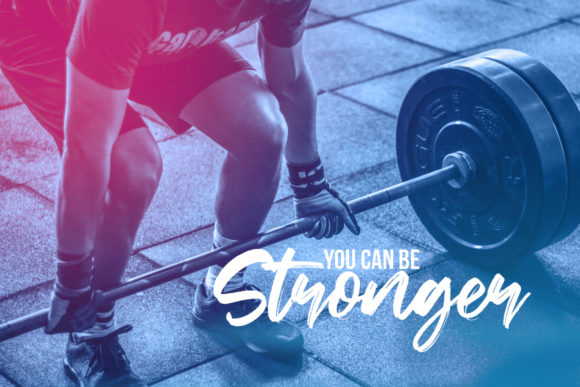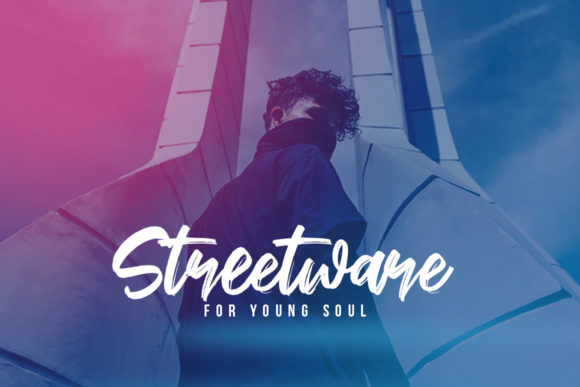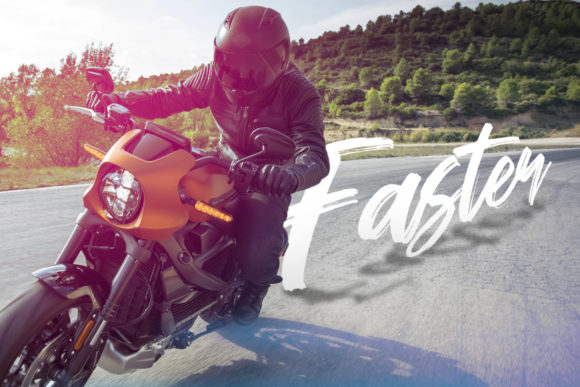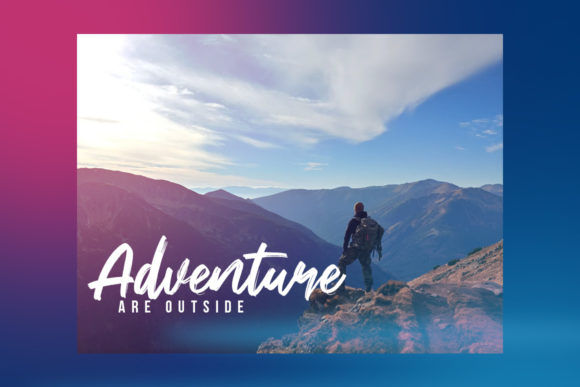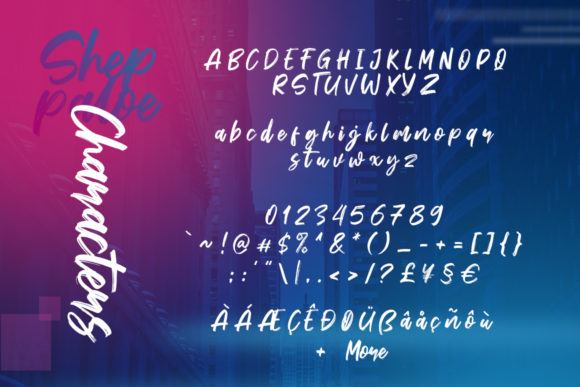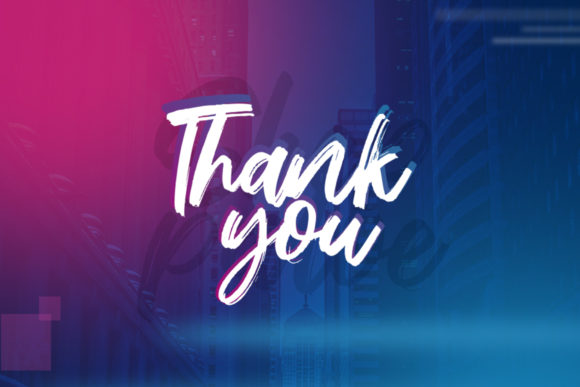
Introduction to Sheppaloe Font
Imagine yourself pouring over old photographs, searching for the perfect image to inspire your next design project. The soft focus, the faded colors, and the handwritten notes in the margins all come together to transport you to a bygone era. This is the magic of the Sheppaloe Font, a fresh handwritten brush font that captures the essence of a vintage aesthetic.
With its elegant and refined feel, the Sheppaloe Font is a valuable addition to any designer’s toolkit. Whether you’re working on a high-end branding project or a personal creative endeavor, this font is sure to add a touch of sophistication and charm. Its versatility makes it an excellent design resource for any project, from posters to invitations, and even social media graphics.
Key Features of Sheppaloe Font
- Sheppaloe Font is a versatile font that offers a unique, elegant design with a transparent background.
Honest Review: Sheppaloe Font
As a designer, I’m always on the lookout for high-quality design resources to enhance my creative projects. Recently, I stumbled upon the Sheppaloe Font, and I must say, it’s been a delightful addition to my design toolkit.
- ✨ Unique aesthetic: The Sheppaloe Font boasts a distinctive, cursive style that adds a touch of elegance to any design project.
- ✨ High-quality design: The font is crisp, clear, and well-crafted, making it perfect for both digital and print applications.
However, I do have a few minor quibbles:
- ⚠️ Limited character set: The font is primarily designed for English text, and it may not be suitable for projects requiring extensive language support.
Overall, I’m thoroughly impressed with the Sheppaloe Font. Its unique style and high-quality design make it a valuable addition to any designer’s toolkit. While it may have some limitations, it’s an excellent resource for creative projects, and its free download makes it a must-have for designers on a budget.
Tips for Getting the Most Out of Sheppaloe Font
For optimal results, use Sheppaloe Font in combination with other design elements, such as images and graphics.
Experiment with different font sizes, colors, and styles to create a visually appealing design.
Common Use Cases for Sheppaloe Font
Sheppaloe Font is ideal for various creative projects, including:
1. Social media